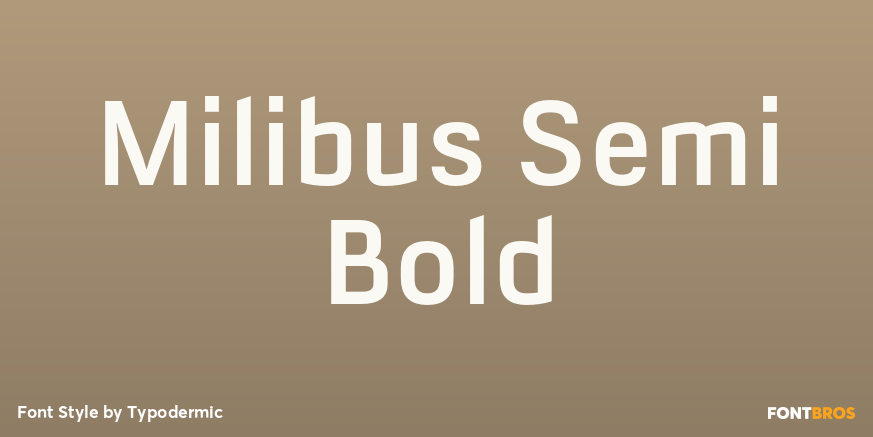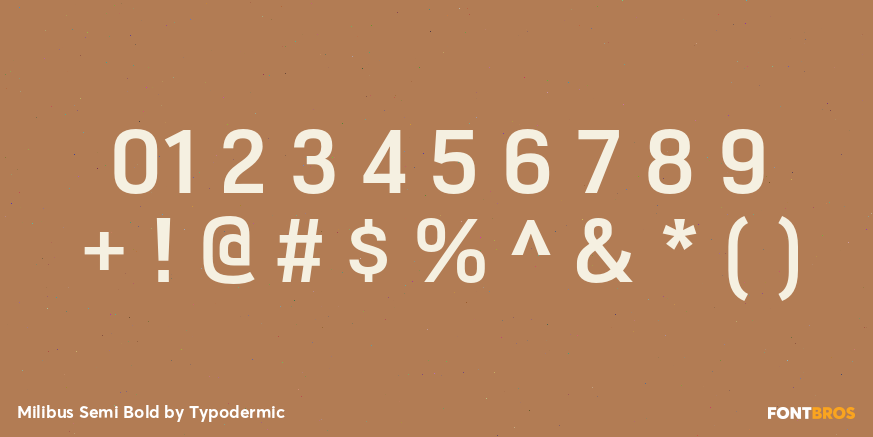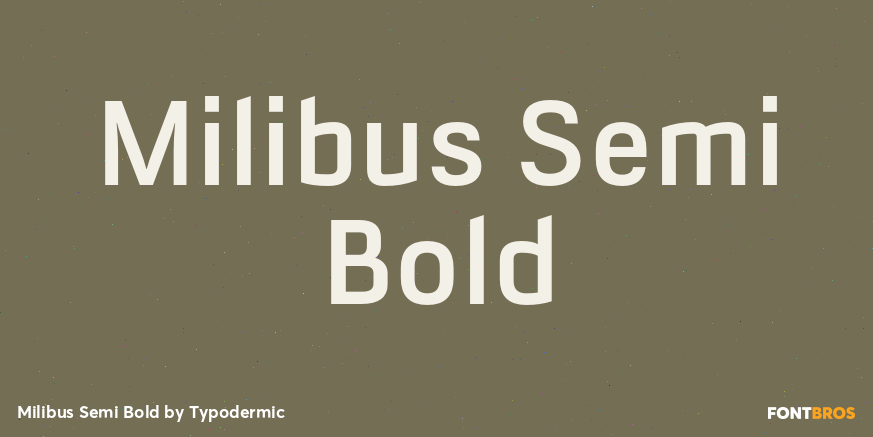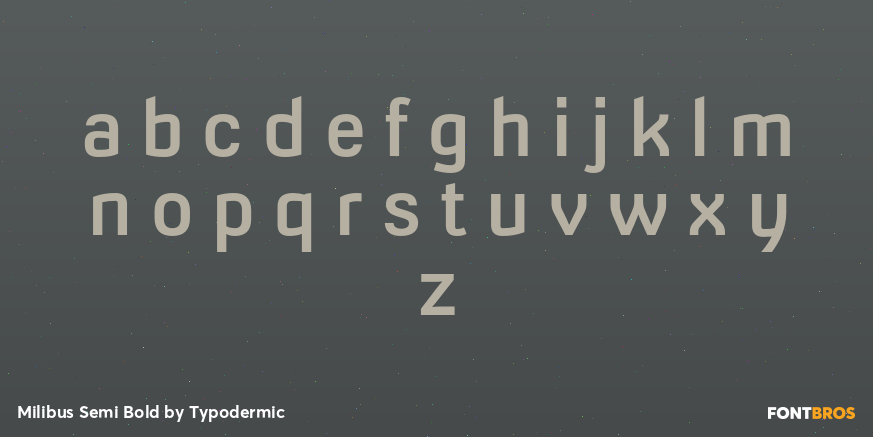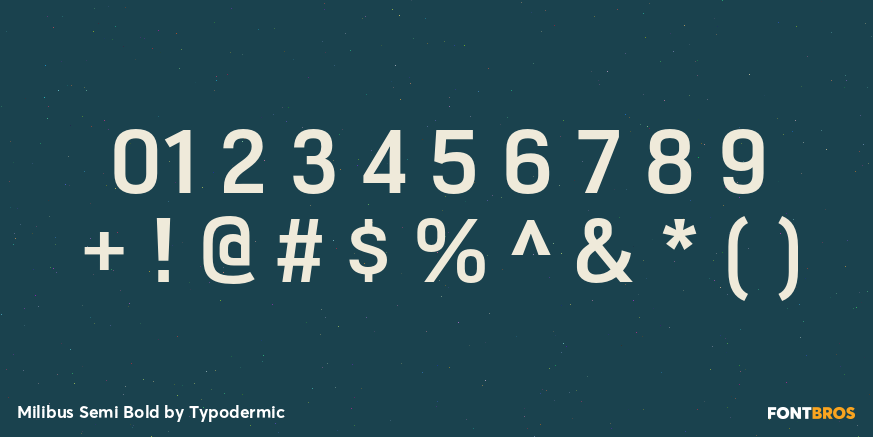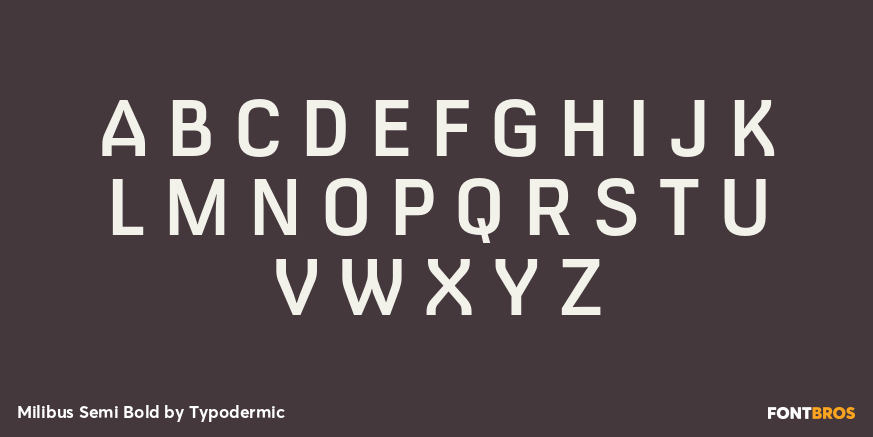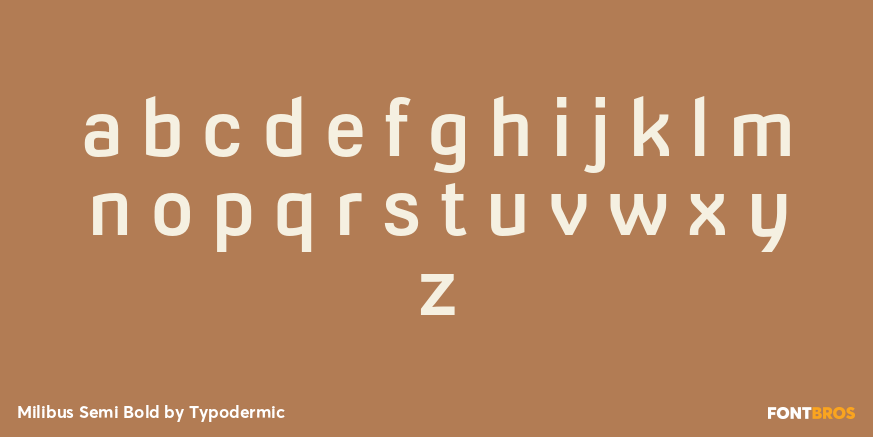
Milibus Semi Bold
Real technology often needs typography that looks engineered without impersonating an industrial standard or turning every product into a science-fiction prop. Milibus is a technical sans-serif whose modifications are visible enough to give a brand proprietary character, yet restrained enough for headings, labels and short explanatory copy.
Milibus concentrates its distinctive treatment in diagonal forms. Flattened sides open the counter of the A and replace conventional points in the V, W, X, Y and K with measured cuts. The alphabet does not become dramatically narrower; instead, it looks as though its geometry has undergone an optimization pass. Familiar curves and lowercase forms keep sentences readable, while the clipped diagonals give product names and model numbers a recognizable signature.
That balance suits companies connecting physical equipment with software and documentation. Industrial robots, machine-vision cameras, automated warehouse vehicles, inspection systems and factory sensors can carry Milibus from equipment badges and product-series names into controller headings, specification sheets, training videos and trade-show displays.
Its engineered efficiency also suits battery-storage systems, power inverters, fleet-charging equipment, heat pumps and building-energy platforms. Laboratory analyzers, optical scanners, metrology systems, surveying drones and satellite payloads extend the same visual idea into precision instruments and remote-sensing technology. Milibus can identify equipment families, organize diagrams and structure technical presentations, while a neutral companion face handles tiny readings and extended text.
Milibus also suits plausible designed futures: research-station interfaces, orbital-logistics games, fictional engineering firms, science-documentary titles and museum exhibitions. It suggests technology backed by procedures, departments and a very particular equipment catalogue.